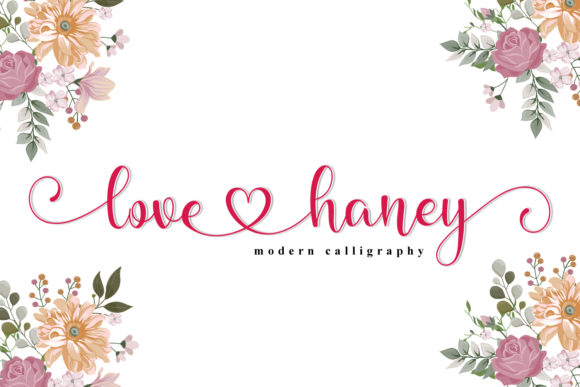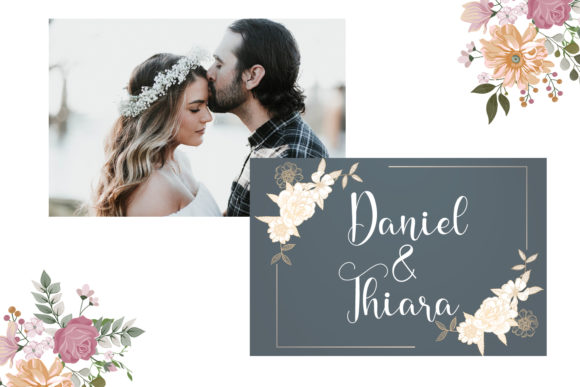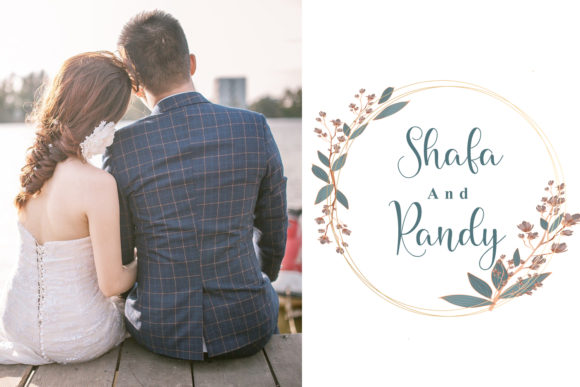
About Love Haney Font
Love Haney feels equally charming and elegant. It looks stunning on wedding invitations, thank you cards, quotes, greeting cards, logos, business cards and every other design which needs a handwritten touch.